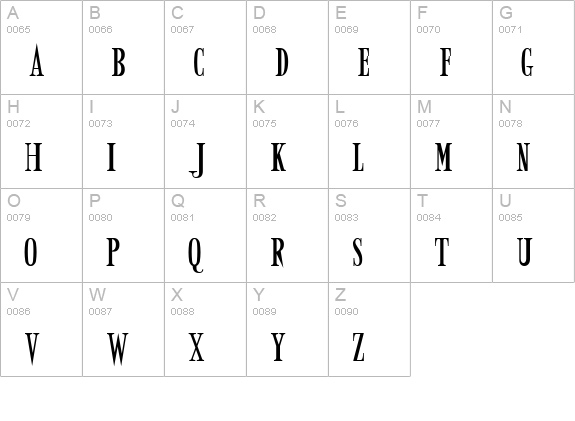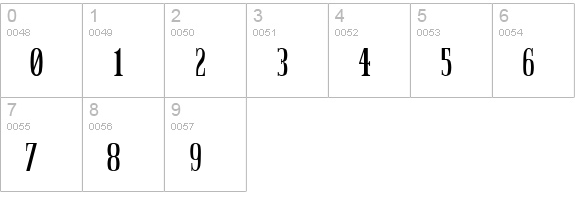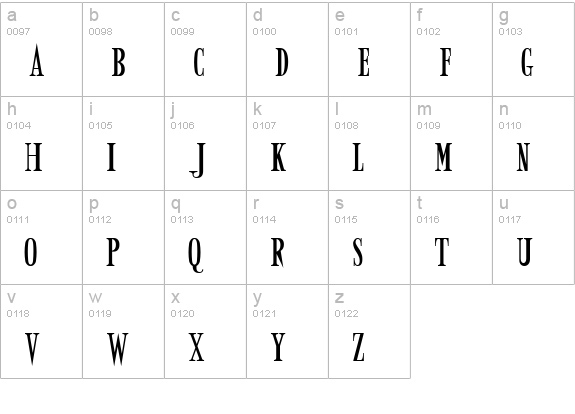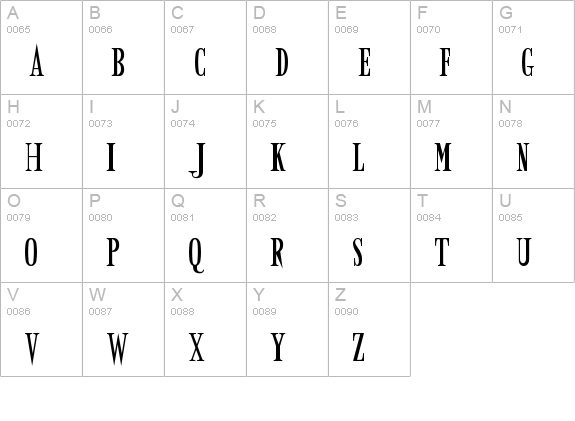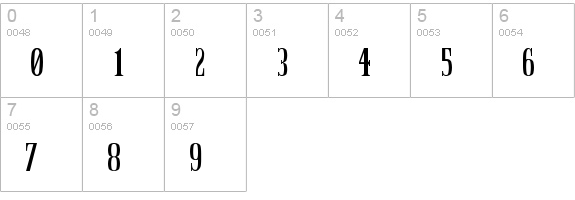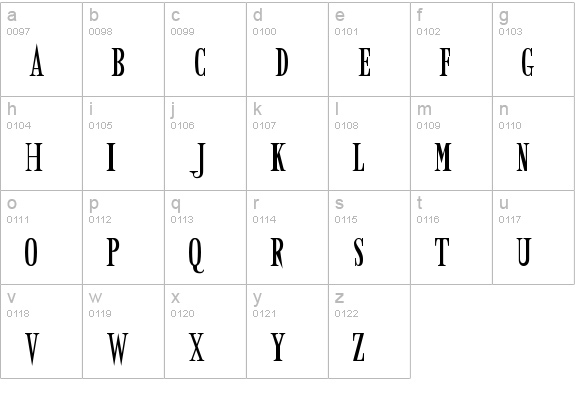
Army of Darkness Font Details
The Army of Darkness font is a bold and rugged typeface that exudes strength and power. With its sharp edges and commanding presence, this font is perfect for creating eye-catching designs that demand attention. Whether you're looking to add a touch of intensity to your projects or want to evoke a sense of authority, the Army of Darkness font is sure to make a statement. Best of all, this powerful font is available for free download at FontsMarket.com. Simply visit the website to get your hands on this versatile typeface and start incorporating it into your designs today. Don't miss out on the opportunity to add a touch of boldness to your projects with the Army of Darkness font - download it now and let your creativity shine!